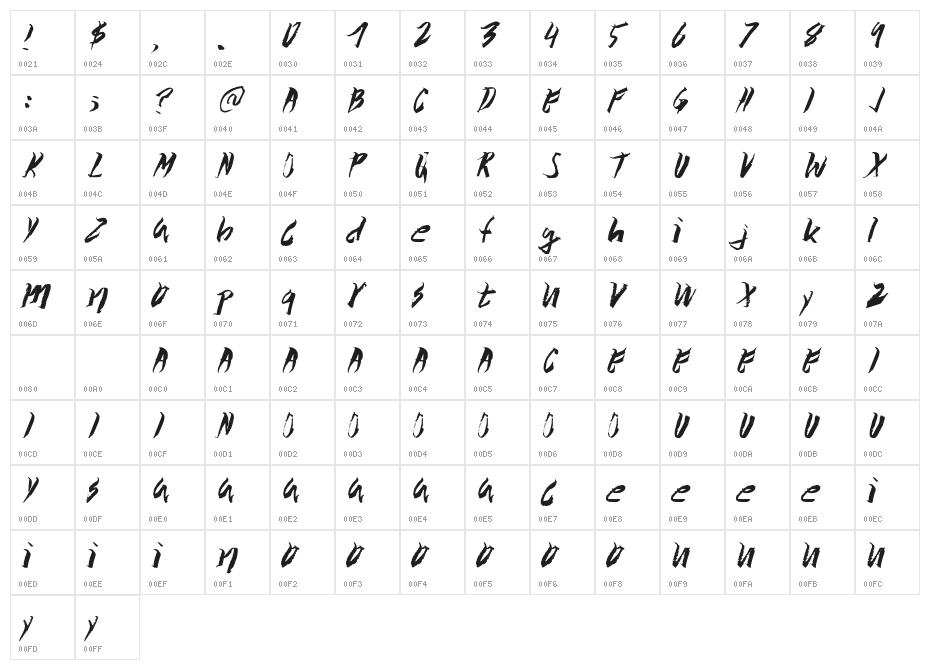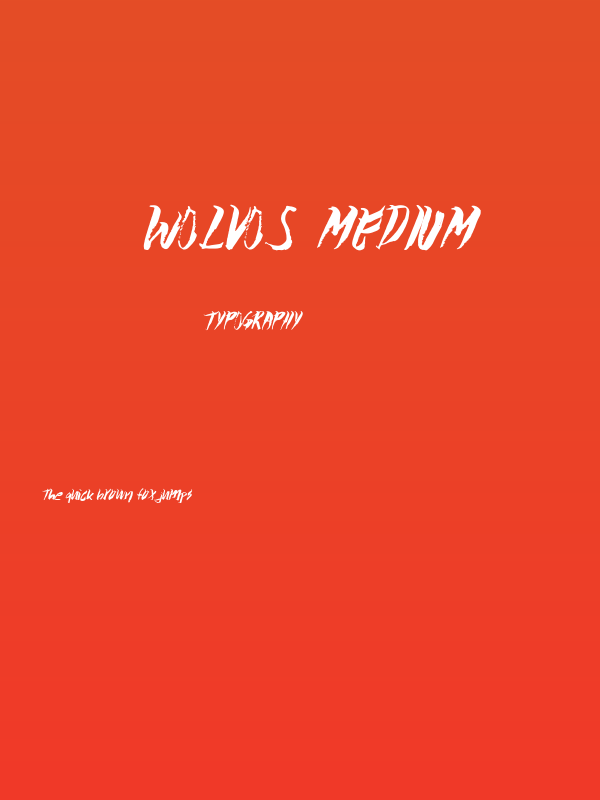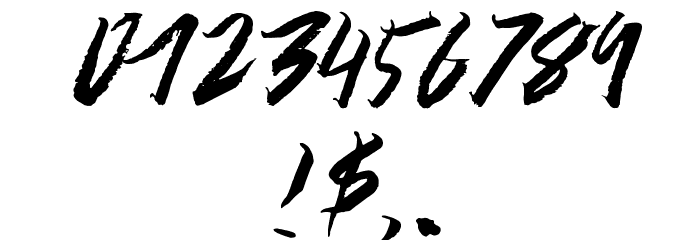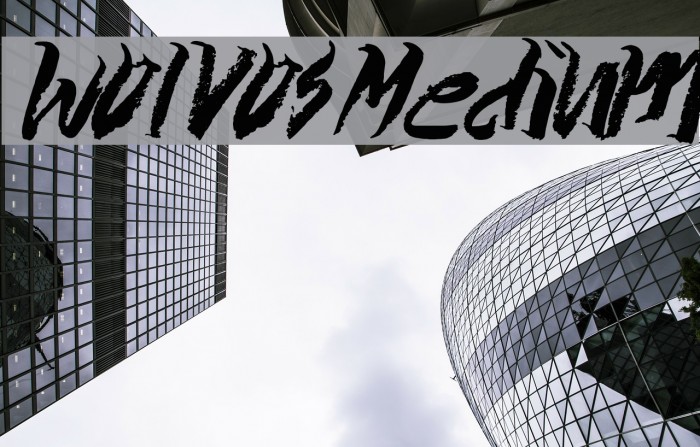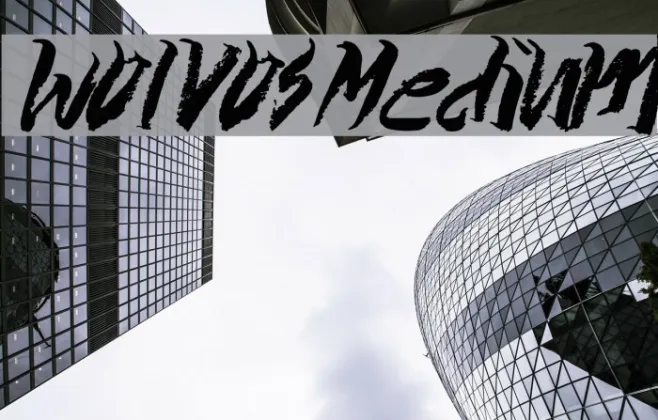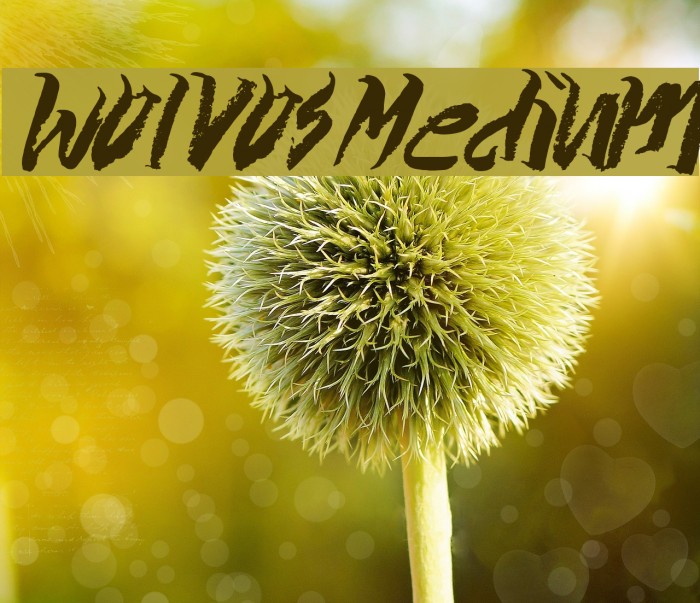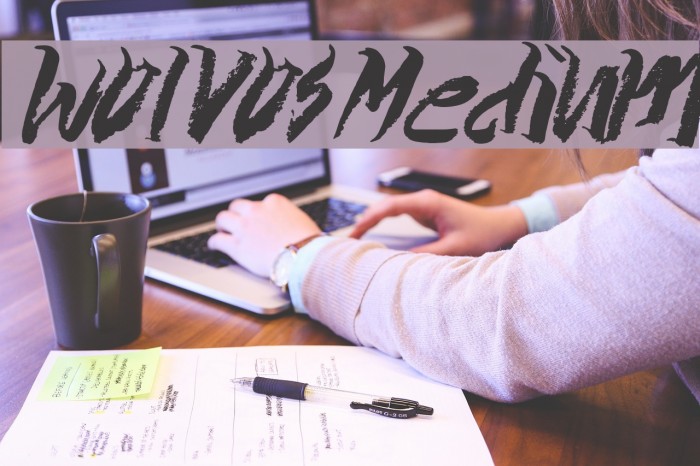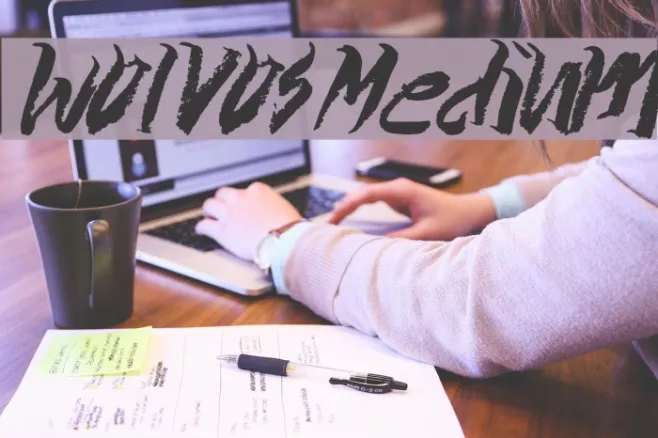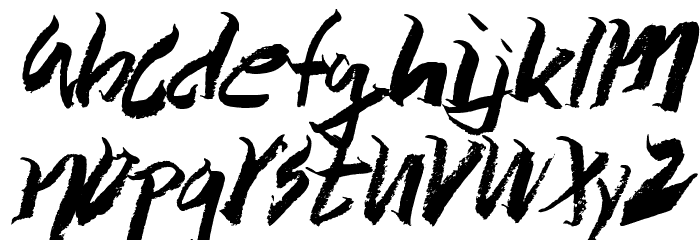
Wolvos-Medium Font
Wolvos-Medium Description
This font features a bold and expressive brush script style, characterized by its dynamic and energetic strokes. The letters are crafted with a sense of movement, giving them a lively and artistic appearance. The uppercase and lowercase letters maintain a consistent flow, while the numbers and special characters complement the overall aesthetic. The strokes vary in thickness, adding a sense of depth and texture to the design. This font is ideal for projects that require a touch of creativity and flair, making it suitable for artistic and expressive designs.